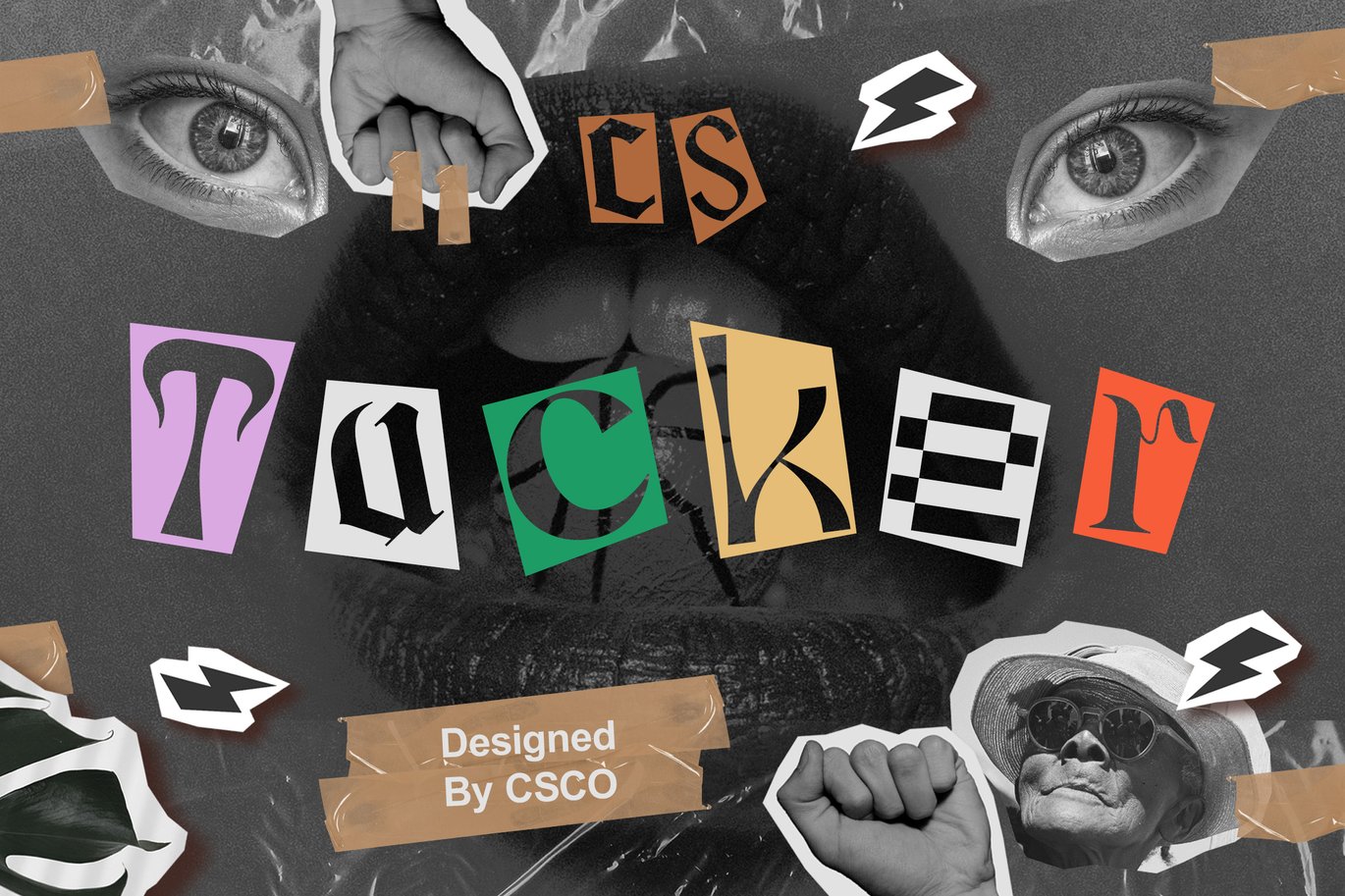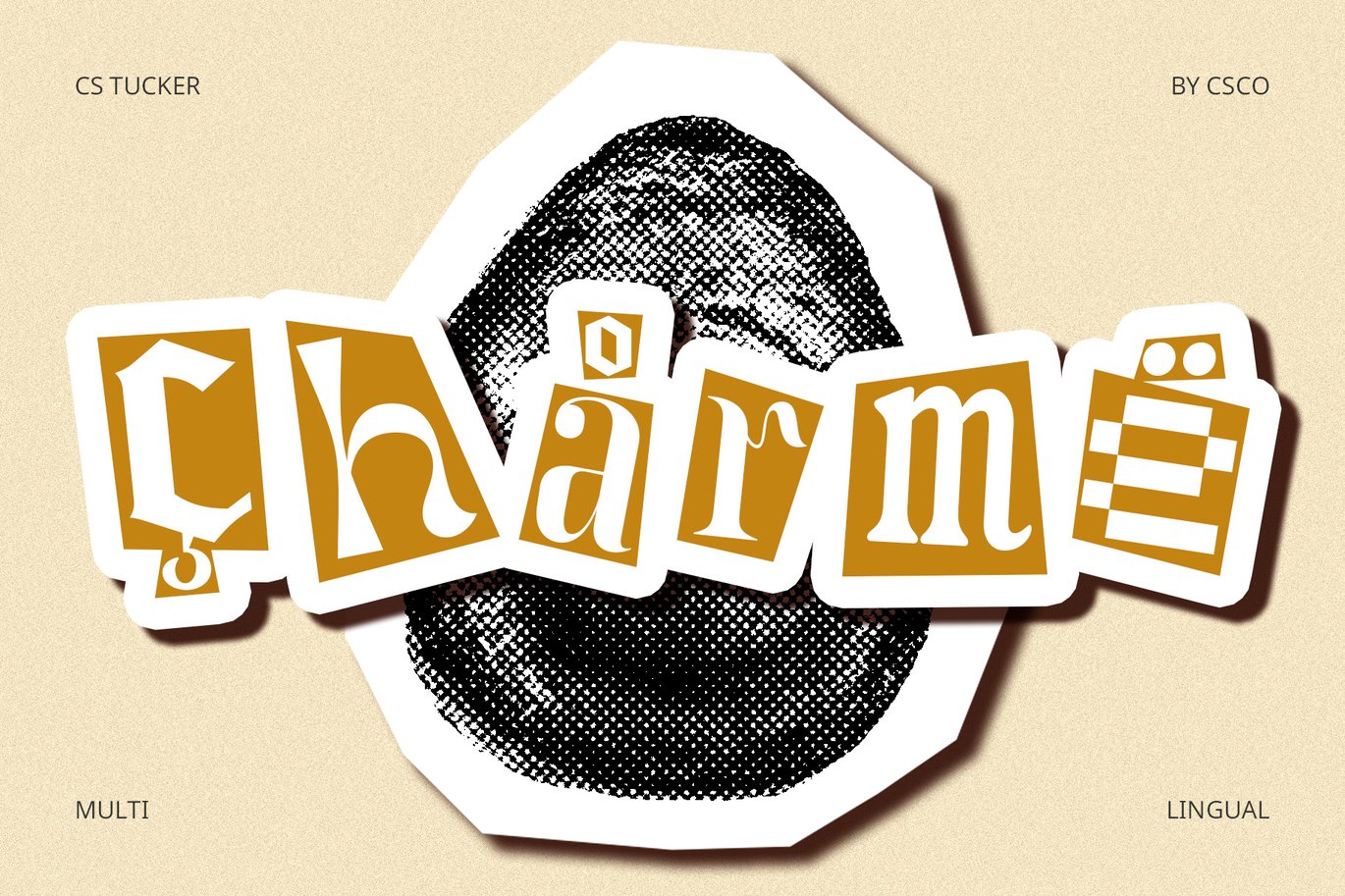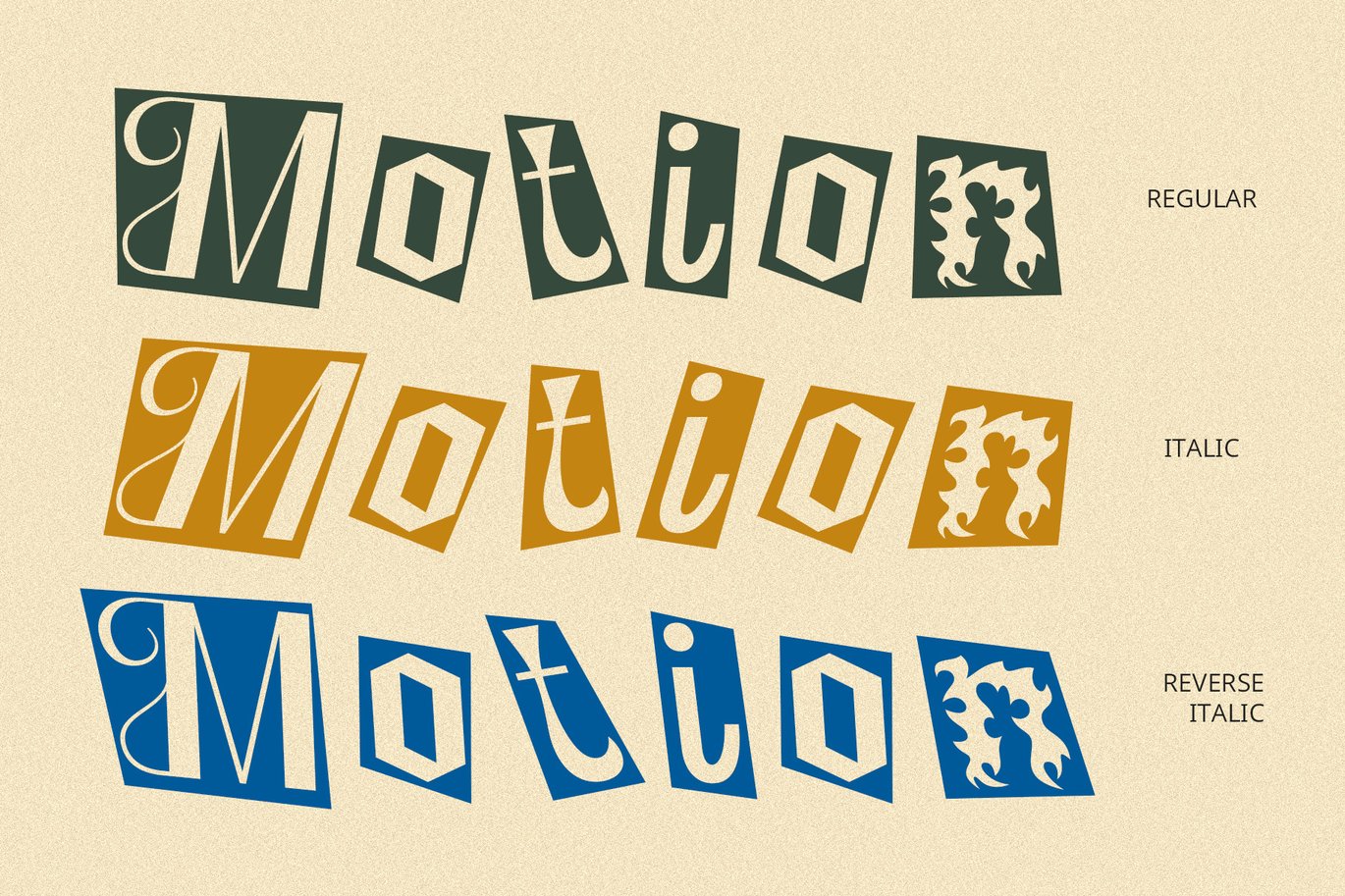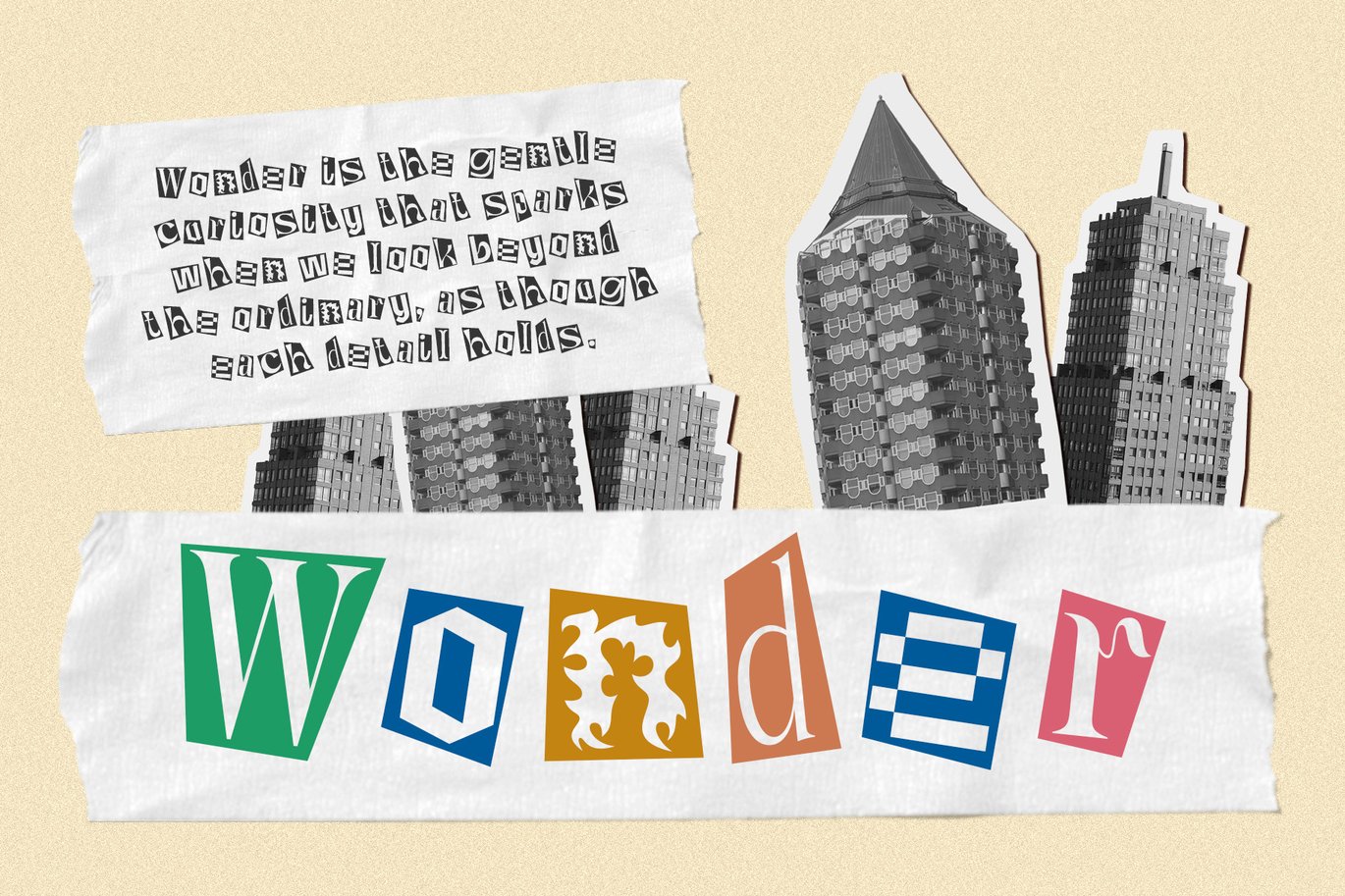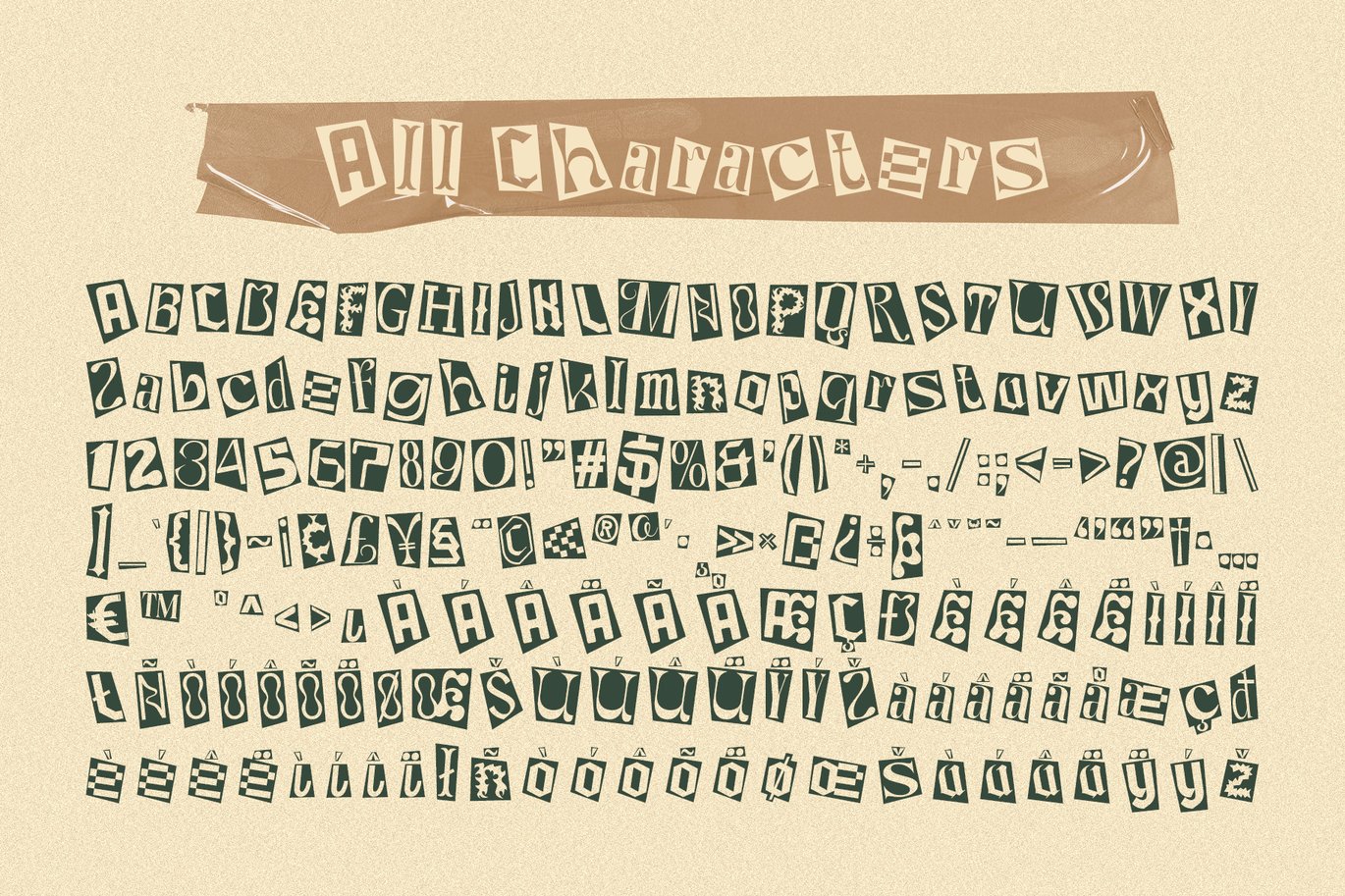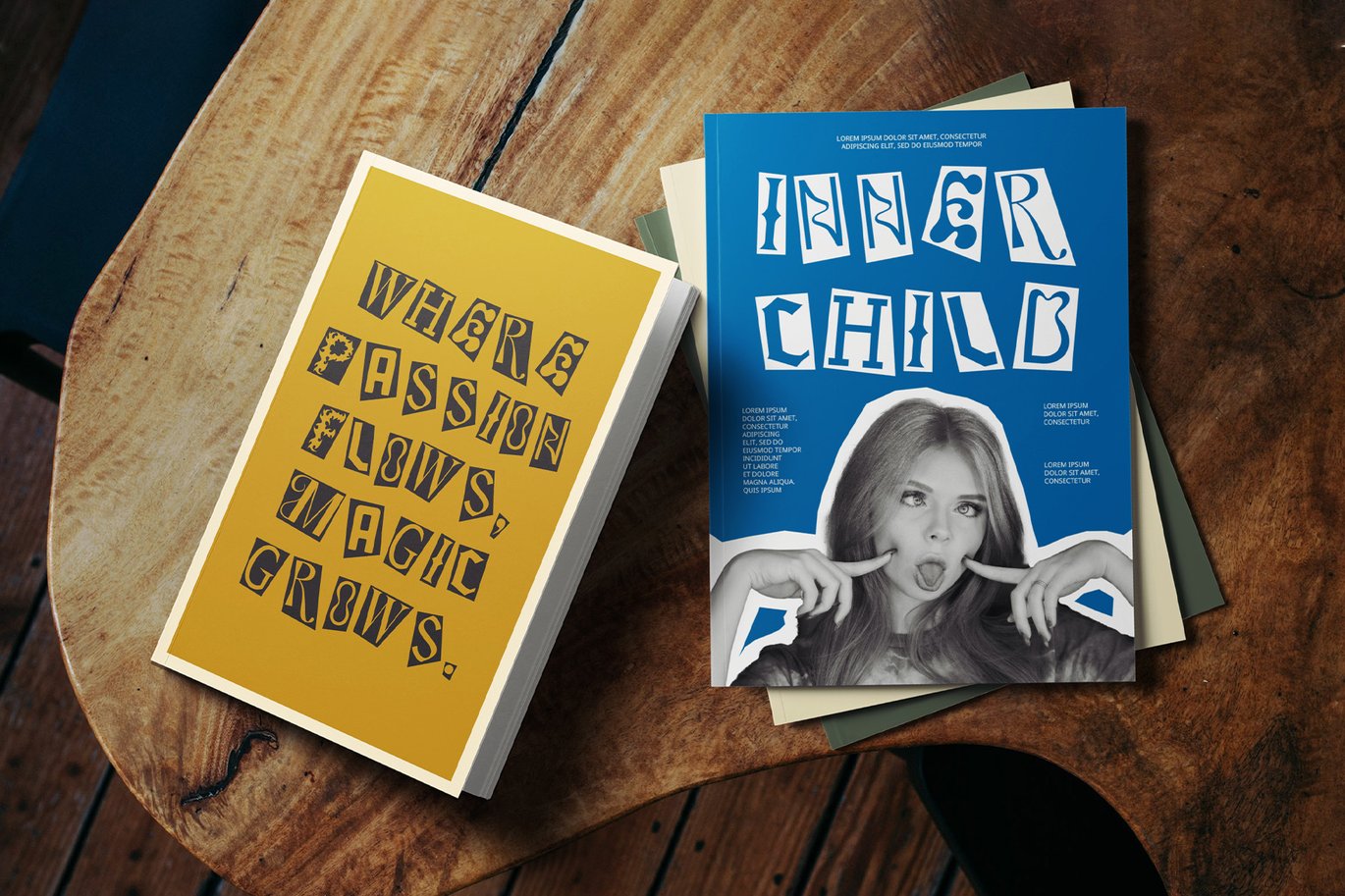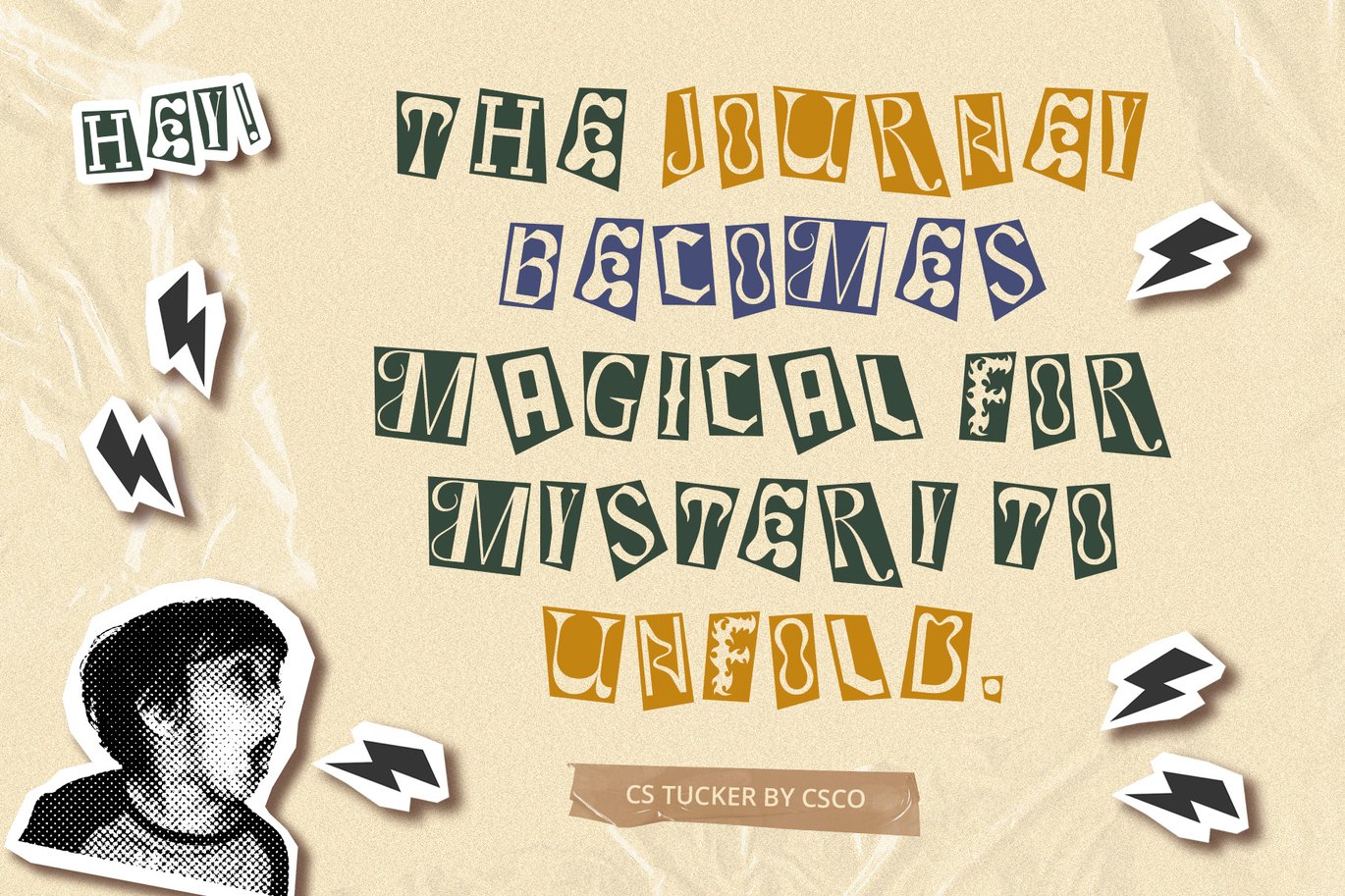
Tucker – Collage Font
CS Tucker – Collage Font
Dynamic Composition
CS Tucker is a vibrant collage or ransom display font that embodies creativity and spontaneity through its unique design. Featuring elements that are cut and arranged in an irregular manner, this font exudes a funky and eclectic appearance that instantly draws attention. The playful arrangement combines various type styles, sizes, and colors, resulting in a dynamic and visually captivating composition.
Creative Versatility
Ideal for a wide range of creative projects, CS Tucker is perfect for posters, advertisements, and graphic designs that aim to celebrate individuality and freedom of expression. Whether you’re crafting an eye-catching promotional material or a striking visual art piece, this font enhances your message with its fun and unconventional vibe, making it a standout choice for any design endeavor.
Unique Aesthetic
The charm of CS Tucker lies in its ability to break away from traditional typography. Its irregular forms and eclectic mix of styles offer a refreshing alternative to standard fonts, allowing designers to push boundaries and explore new creative avenues. This font is particularly effective in projects targeting youthful or avant-garde audiences, where uniqueness and character are paramount.